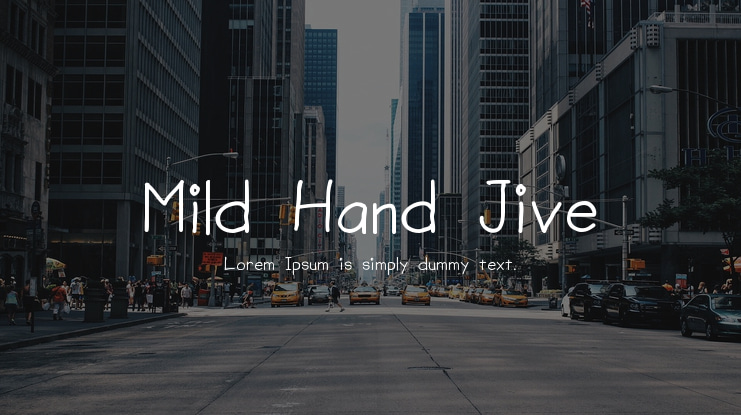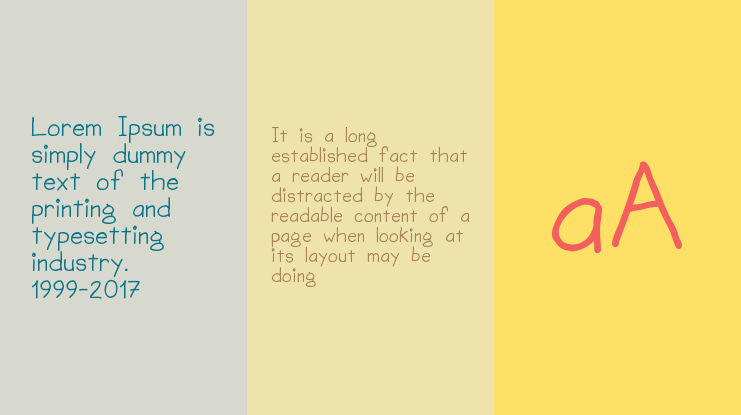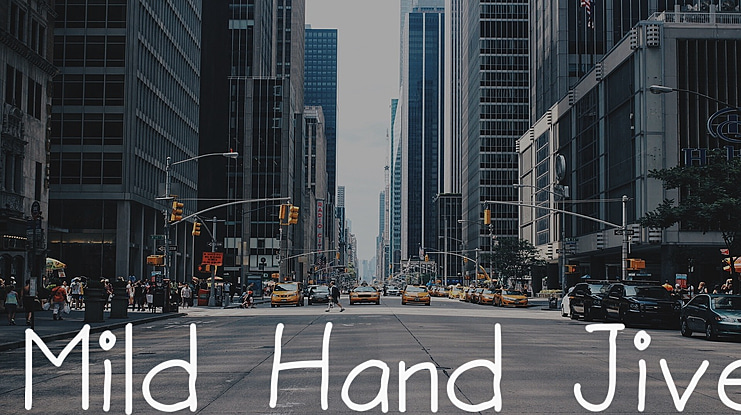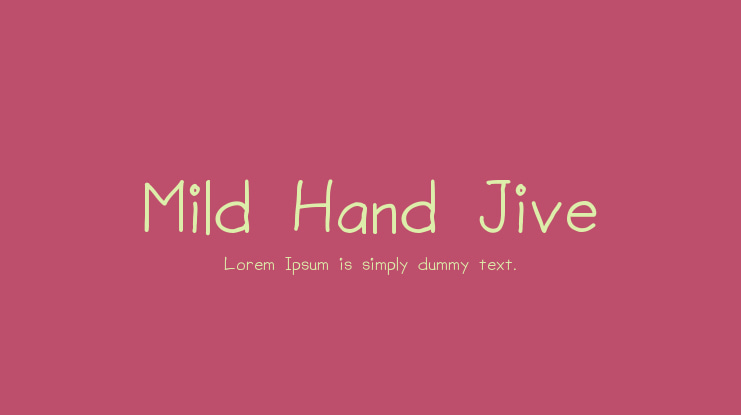
Mild Hand Jive Font
This is a font I scribbled out and forgot about, unless perhaps someone else had been scribbling out fonts in my style and hiding them on my harddrive.